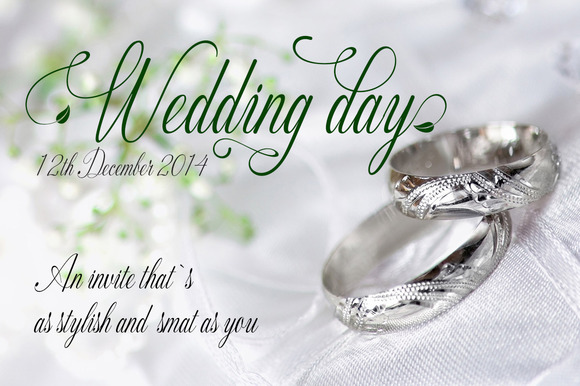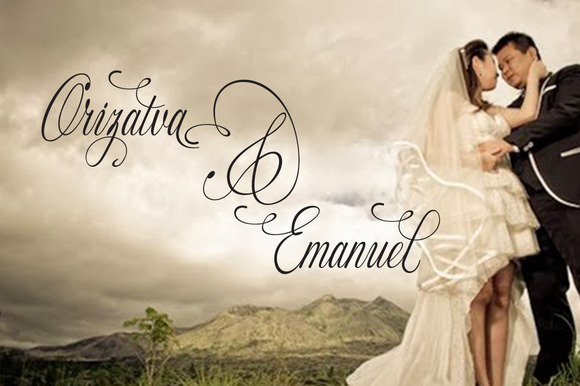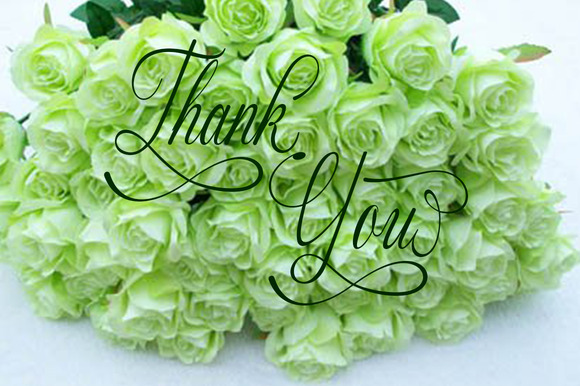
Fameliya Font
About Fameliya Font
Fameliya is a very classic elegant font. This font works great for designs that need to breathe quality and luxery such as wedding invites.